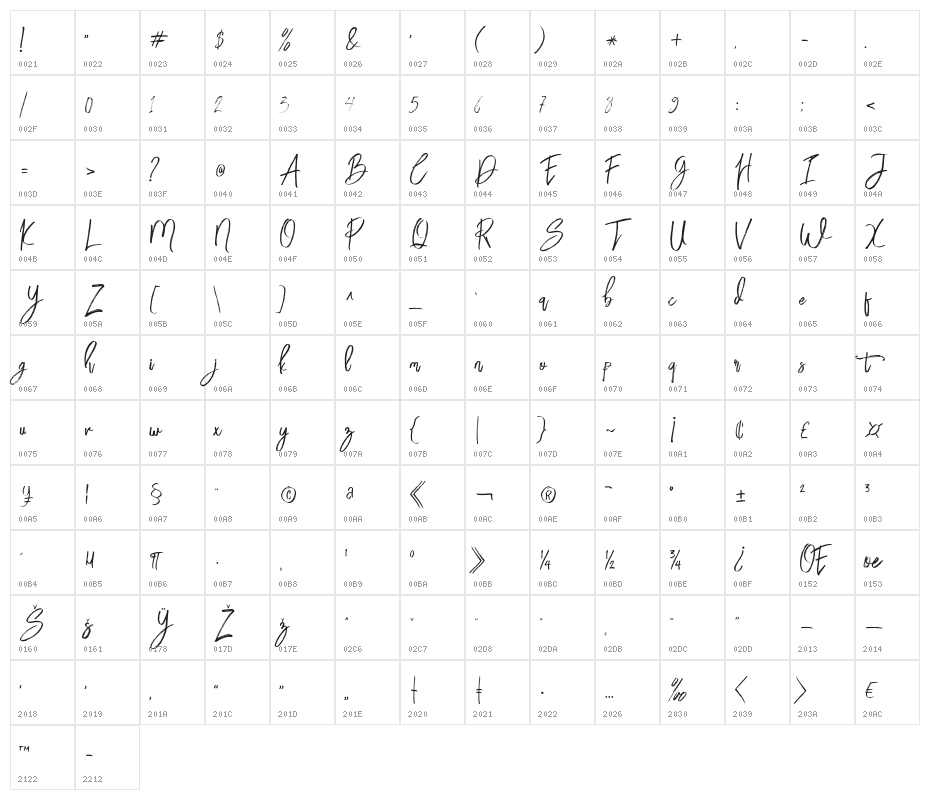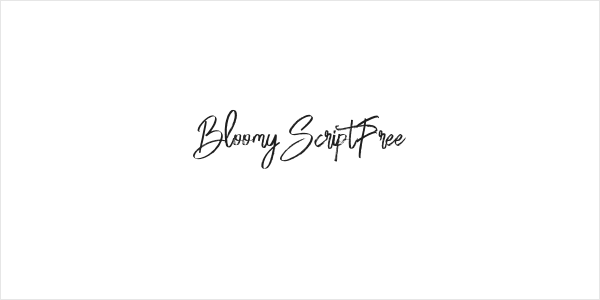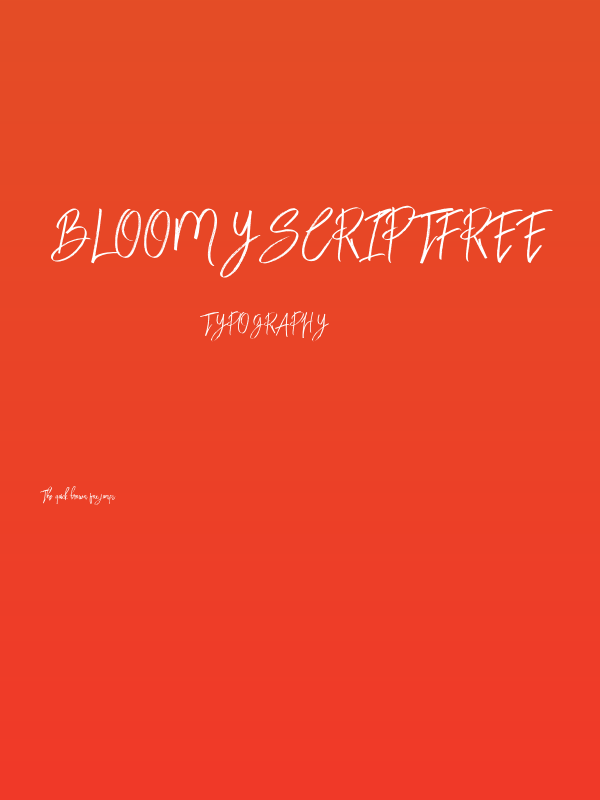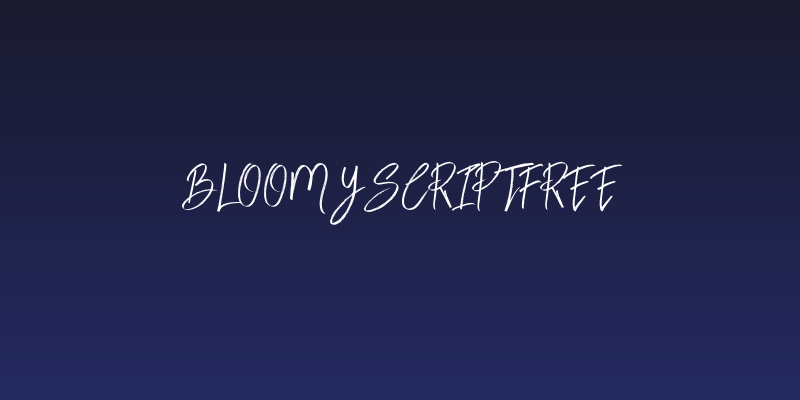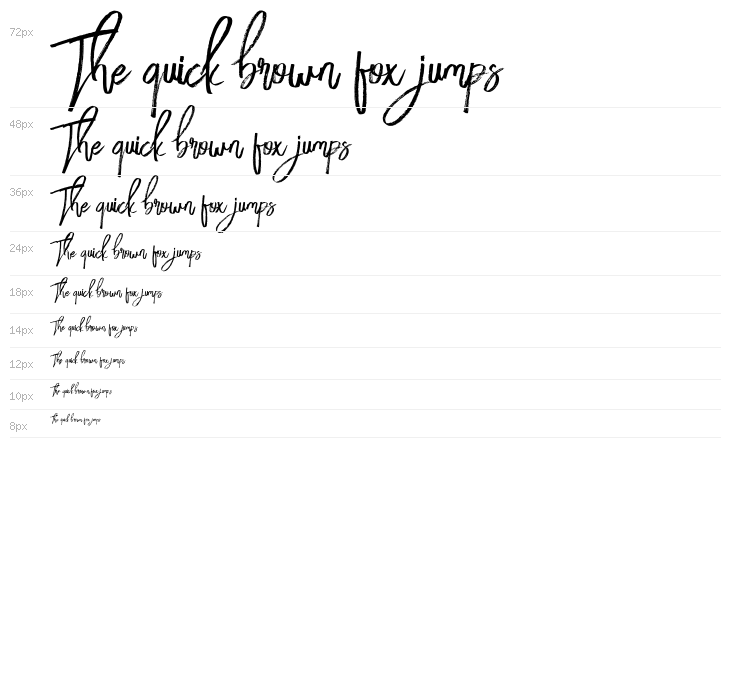
BloomyScriptFree Font
BloomyScriptFree Description
This font exudes a lively and artistic flair, characterized by its handwritten script style. The letters are fluid and dynamic, with a natural, flowing rhythm that mimics the strokes of a calligrapher's pen. The uppercase letters are bold and expressive, while the lowercase letters maintain a consistent elegance. The numbers and special characters follow the same artistic theme, adding to the font's cohesive look. The overall appearance is both casual and sophisticated, making it versatile for various creative applications.
Use CaseLogos, Invitations, Artistic projects
Proposed ProjectsIdeal for wedding invitations, greeting cards, branding projects, and artistic posters.